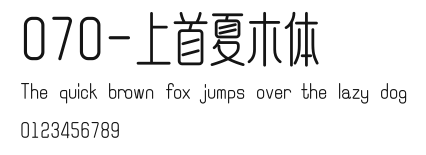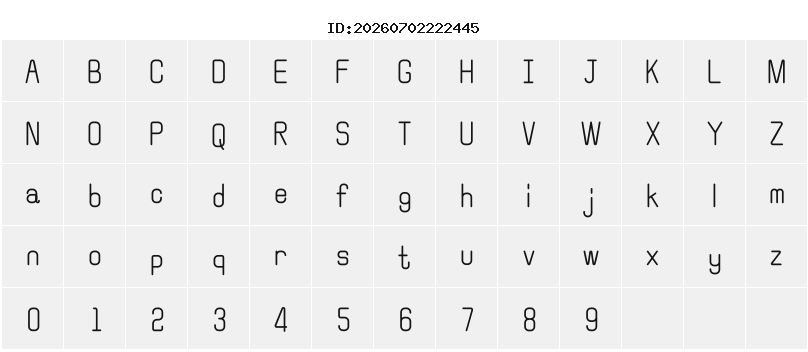
070-上首夏木体 Preview
About 070-上首夏木体.ttf
070-上首夏木体.ttf is a modern, elegant sans-serif font designed for ultimate readability and visual harmony. Perfect for branding, headlines, web design, and print materials.